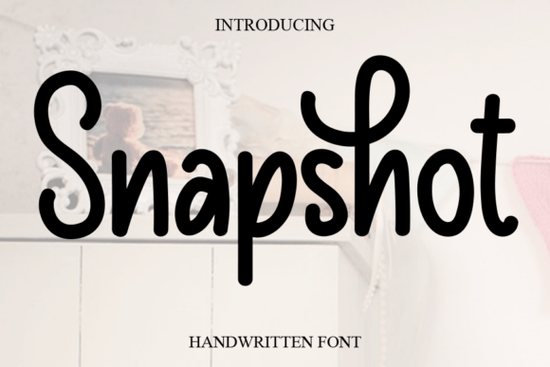
If you're looking for a handwritten font that feels warm, romantic, and effortlessly elegant, Snapshot Font is worth a close look. It's a sweet, cursive script with gentle curves and a relaxed flow the kind of typeface that makes wedding invitations, logos, and social media graphics feel personal without trying too hard. I've been exploring script fonts on Creative Fabrica lately, and this one stood out for its versatility across so many design projects.
What Makes Snapshot Font a Good Pick for Everyday Design Work?
Not every script font works across different projects. Some look too formal. Others are too messy to read at smaller sizes. Snapshot Font sits in a comfortable middle ground it's cursive enough to feel hand-lettered but clean enough to stay legible on greeting cards, product tags, and marketing materials.
The letterforms have a natural, flowing rhythm. There's a slight bounce between characters that gives the font personality without making it look chaotic. If you've used fonts like Nuances Affection, you'll notice a similar warmth, though Snapshot leans a bit more casual and approachable.
Who Is This Font Best Suited For?
Snapshot Font works well for a range of creative people and businesses. Here's where I see it fitting most naturally:
- Wedding stationery designers invitations, RSVP cards, table numbers, and menus
- Print-on-demand sellers t-shirt quotes, mug designs, tote bag typography
- Small business owners brand logos, packaging labels, thank-you cards
- Bloggers and content creators Pinterest pins, Instagram stories, YouTube thumbnails
- Crafters using Cricut or Silhouette vinyl decals, stickers, scrapbook layouts
The romantic, handwritten quality of the font makes it especially popular for fashion lookbooks and lifestyle branding. If your audience responds to that soft, curated aesthetic you see on Instagram, this typeface fits right in.
How Does It Compare to Other Script Fonts?
Creative Fabrica has a huge collection of script fonts, so it's fair to wonder how Snapshot stacks up. Here's my honest take:
Compared to Messy Memoir, which has a more raw, scratchy texture, Snapshot is smoother and more polished. It's better suited for elegant projects where readability matters. On the other hand, if you want something with a more vintage, ornate feel, fonts like Wonderful Vintages might be a closer match.
For those who prefer a slightly more traditional calligraphy style, Mallestian Script offers flowing swashes and a more classic structure. Snapshot Font, by contrast, keeps things light, friendly, and unpretentious which is exactly what makes it so versatile.
What Design Projects Work Best with a Cursive Handwritten Style?
Cursive handwritten fonts like Snapshot shine when you want to add a human, personal touch to a design. Think about the last time you received a handwritten note it felt more meaningful than printed text, right? That's the effect a good script font creates digitally.
Here are specific use cases where this font style performs really well:
- Logo design for boutiques, bakeries, florists, and lifestyle brands
- Quote graphics for social media and wall art prints
- Event signage welcome signs, bar menus, photo booth props
- Digital planners and journals headers, tabs, decorative labels
- Ebook and lead magnet covers where you want a warm, approachable feel
Pair it with a simple font like Bebas Neue for body text, and you'll get a clean, balanced design every time.
Quick Checklist Before You Start Designing
Before you download and start creating, here's a short list to make sure you get the most out of this font:
- Test readability at the actual size your design will be displayed or printed
- Choose a complementary font for body copy avoid pairing two script fonts together
- Adjust letter spacing in your design tool if characters feel too tight or too loose
- Use it sparingly script fonts are accent fonts, not body fonts. A little goes a long way